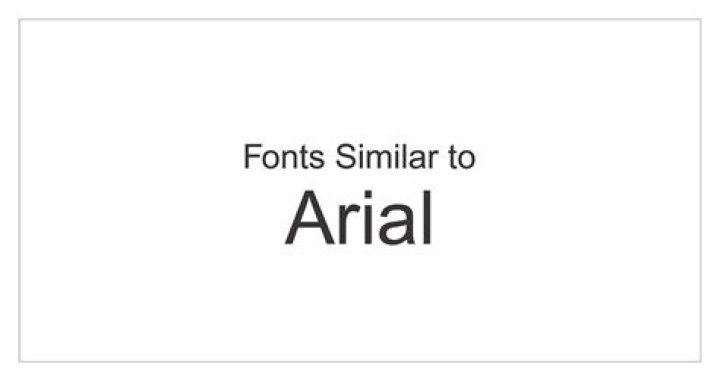
What are fonts similar to Arial?
Fonts Similar to Arial Syabil. Syabil falls into the humanistic category, very similar to the Arial font. Oliviar. Oliviar is a beautiful grotesque font similar to Arial and Helvetica. Groteska is a sans serif font that’s clean and minimalist. Arthura. Proda Sans. Aurel. Bergen Text. RNS Sanz. RNS Sisma. Magdelin.
Is Arial font sans serif font?
Arial Font. Arial is a Sans-serif typeface font designed by Monotype Imaging designers Robin Nicholas and Patricia Saunders in 1982.
Is Arial font serif or sans serif?
Arial, sometimes marketed or displayed in software as Arial MT, is a sans-serif typeface and set of computer fonts.